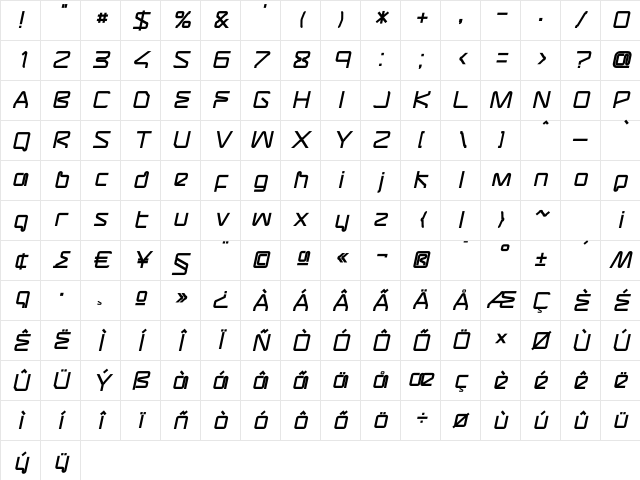
AssemblerBold Oblique Regular Free Font
AssemblerBold Oblique Regular
Design Context for AssemblerBold Oblique
AssemblerBold Oblique is a composed and adaptable typeface that performs quietly and consistently across a wide range of design contexts. The slanted form adds forward momentum and visual energy. Its bold stroke weight gives it real presence on the page.